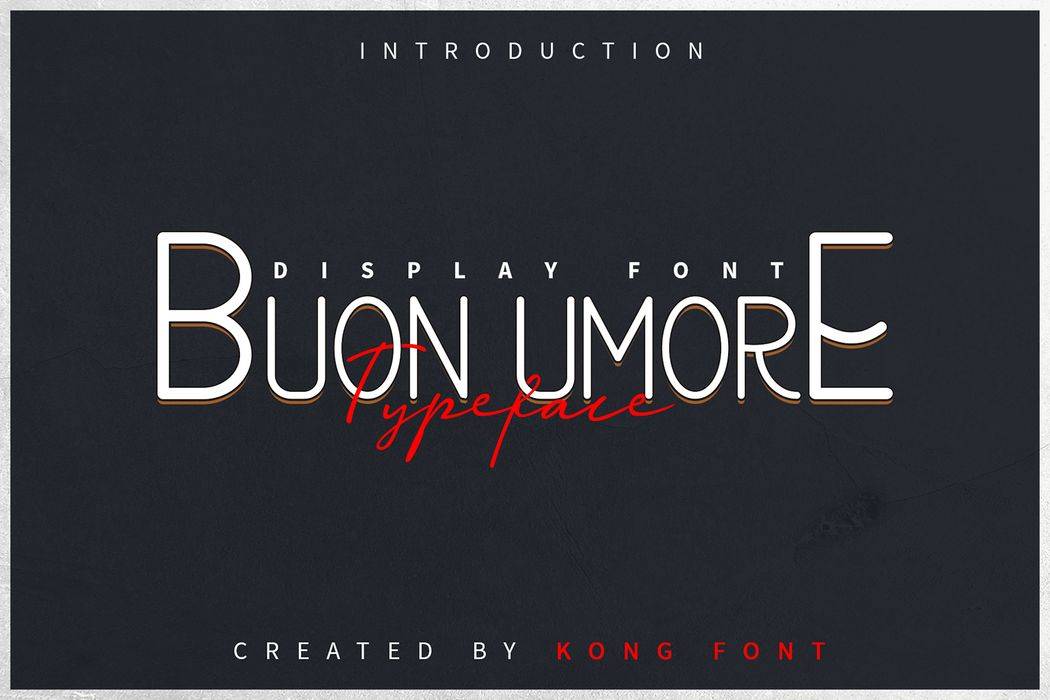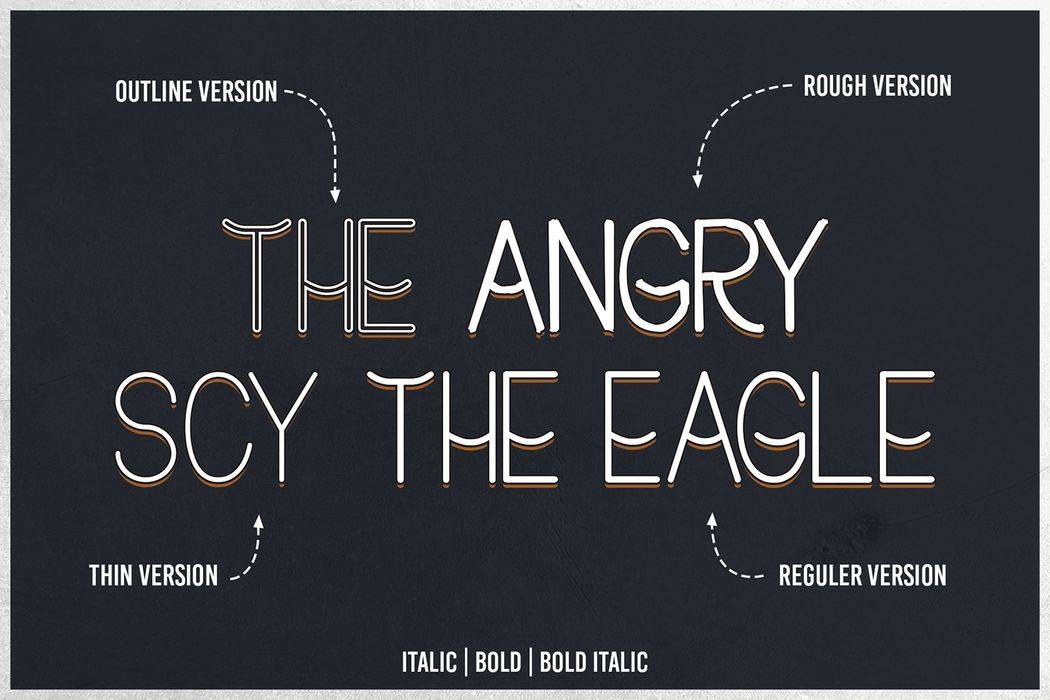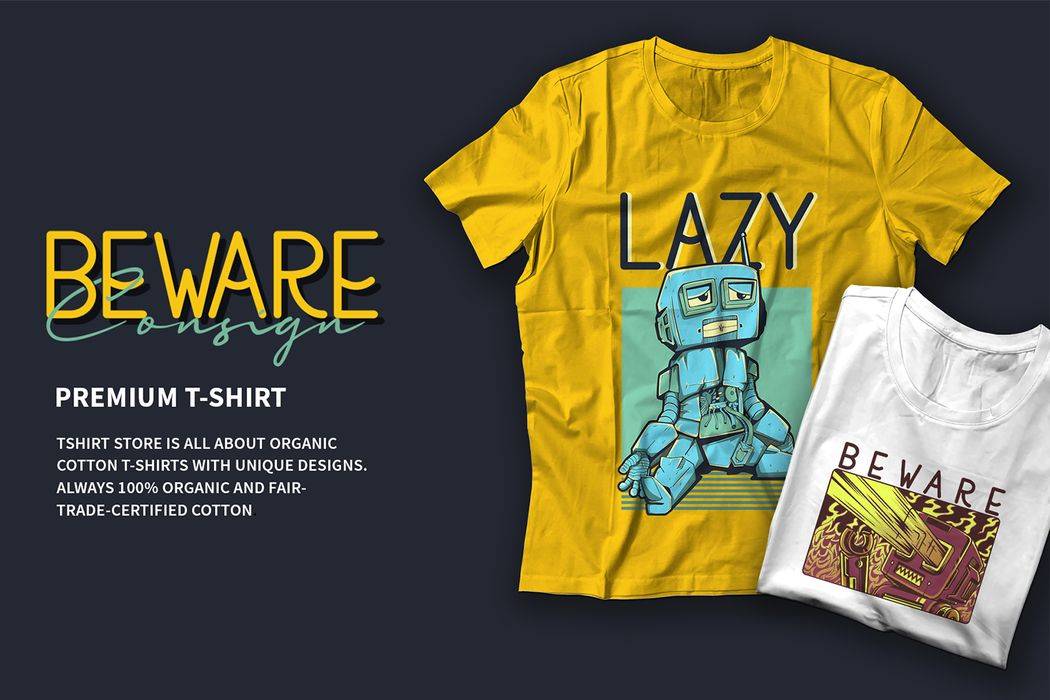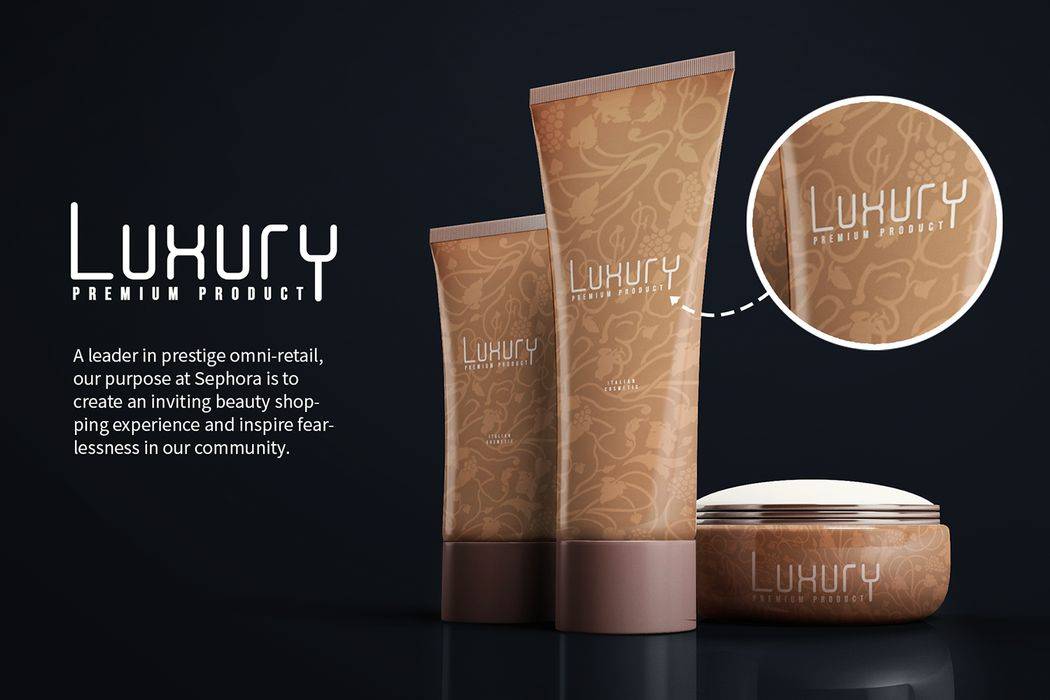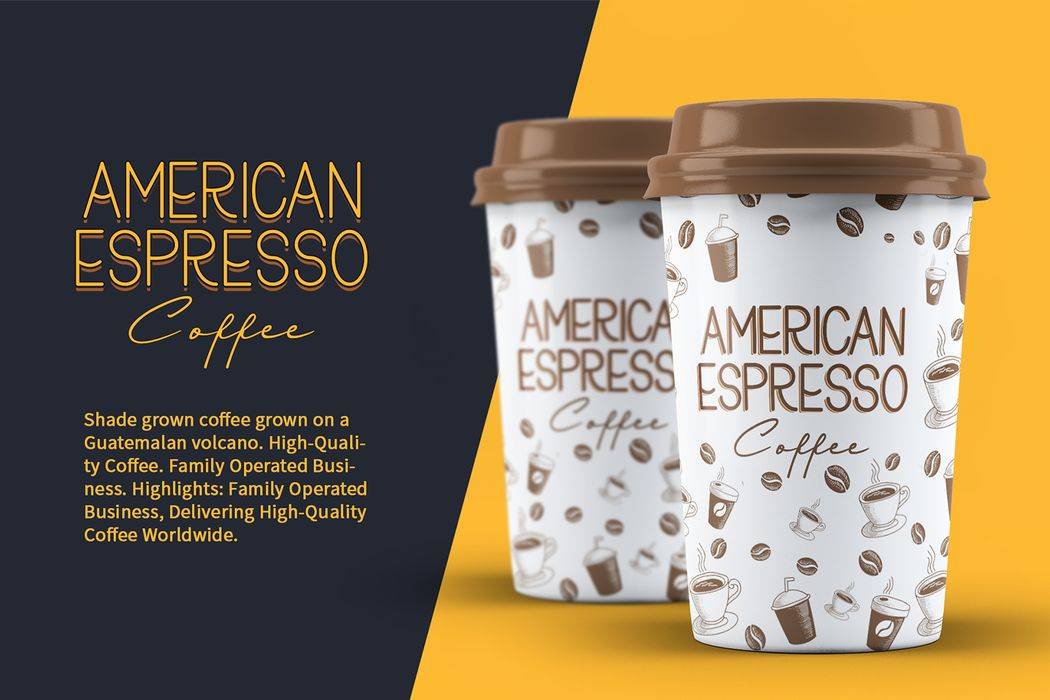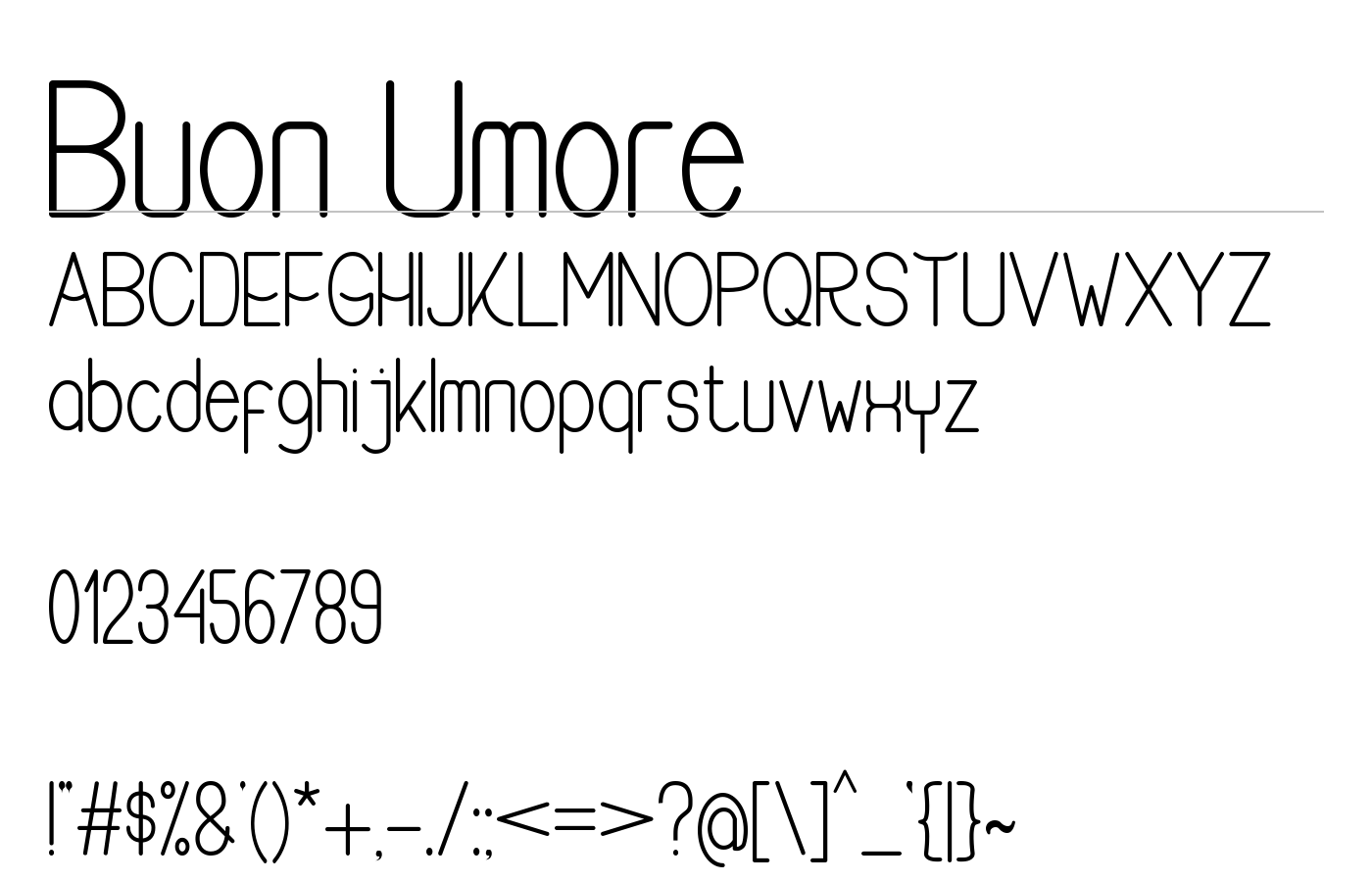
Buon Umore is a light, narrow sans serif font with a playful and modern character. Its tall, slender letterforms with rounded corners and unique, quirky details give it a friendly and approachable feel, making it ideal for creative branding, editorial headlines, and stylish web use where a clean yet distinctive look is desired. This font’s airy spacing and geometric simplicity help maintain readability while adding a touch of personality to any project.
Buon Umore Font
About Buon Umore Font
| Font family | Buon Umore Font |
| Font subfamily | Bold, Italic |